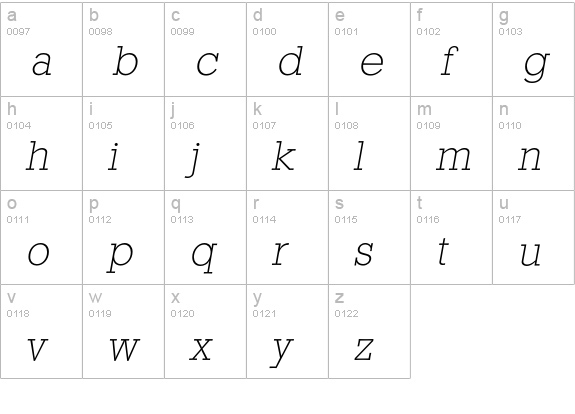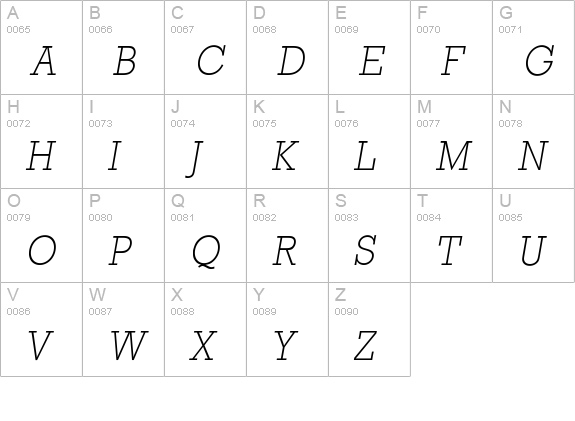
Stafford-XlightIta is a beautifully crafted font that effortlessly combines elegance and sophistication. With its delicate and slender letterforms, this font exudes a sense of grace and refinement that is perfect for any design project. This font is meticulously designed to provide a seamless reading experience, making it ideal for both print and digital media. Its thin strokes and subtle curves create a harmonious balance that captivates the eye and enchants the reader. But what truly sets Stafford-XlightIta apart is that it is absolutely free. Yes, you read that right! This font is freely available to download at FontsMarket.com, allowing you to add a touch of class to your designs without breaking the bank. Whether you're working on a wedding invitation, a logo design, or a branding project, Stafford-XlightIta is the perfect choice to elevate your work to new heights. Its versatility and timeless appeal make it suitable for a wide range of applications, ensuring that it remains a staple in any designer's toolkit. So why wait? Head over to FontsMarket.com and download Stafford-XlightIta today, and let your creativity soar with this exceptional font.